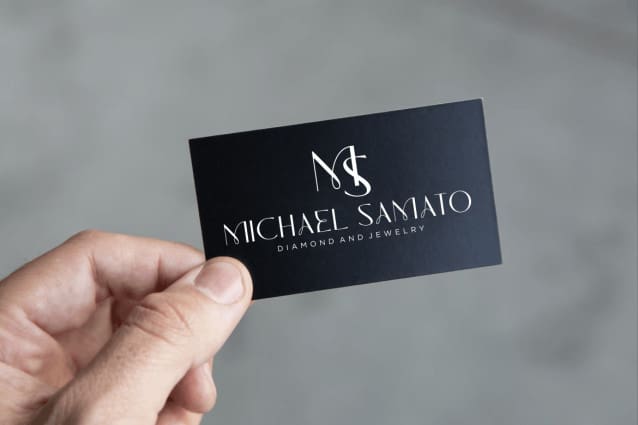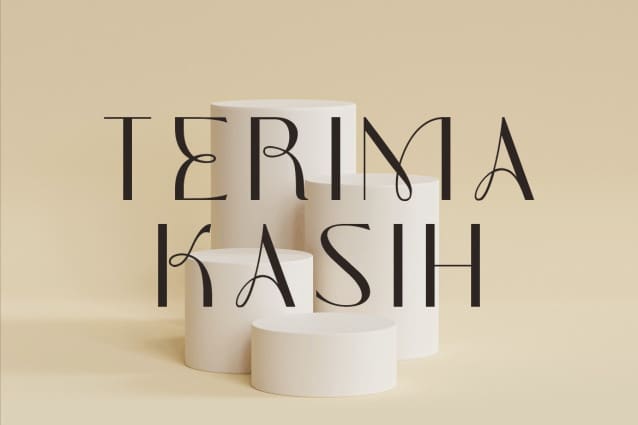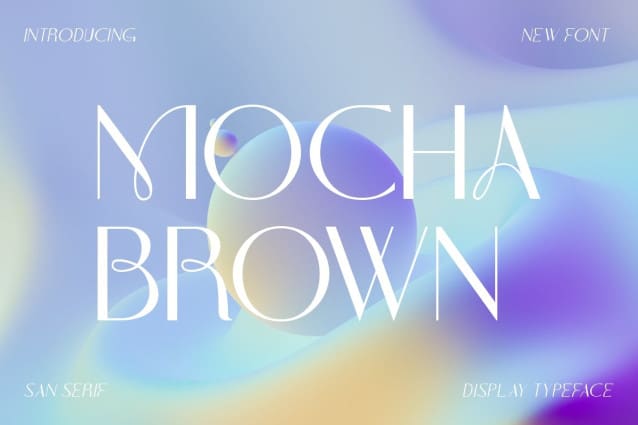
Mocha Brown Font
Mocha Brown Font, this SSerif collection is perfect for personal branding. It was designed with the intention of being used for your personal branding. But it works well for many applications. Everything from personal branding to logos, name tags, handwritten quotes, product packaging, merchandise, social media and greeting cards. Photo signature and advertising could benefit from this collection of these bold signature fonts